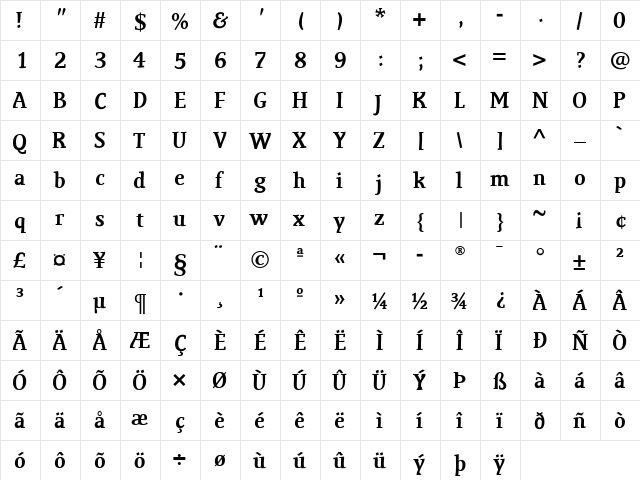
Poseidon Medium
Design Context for Poseidon Typeface
Poseidon takes a measured approach to typography — its balanced proportions and neutral character make it a reliable workhorse for both digital and print work.